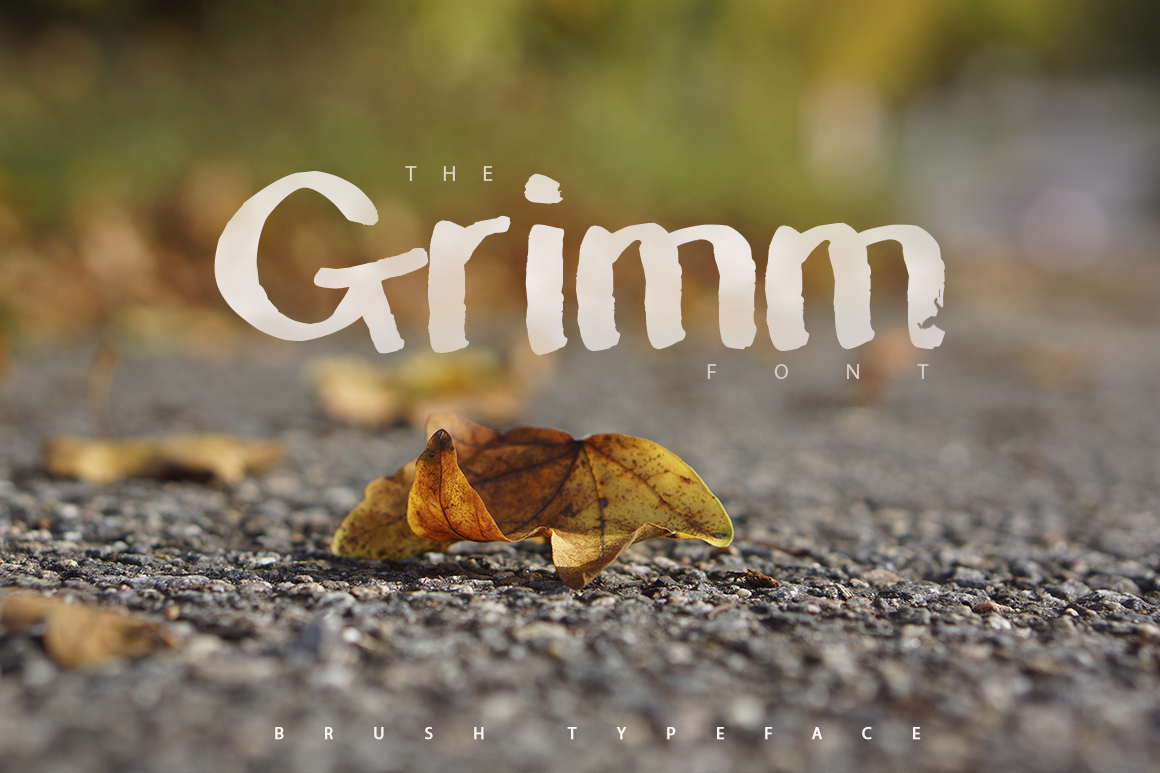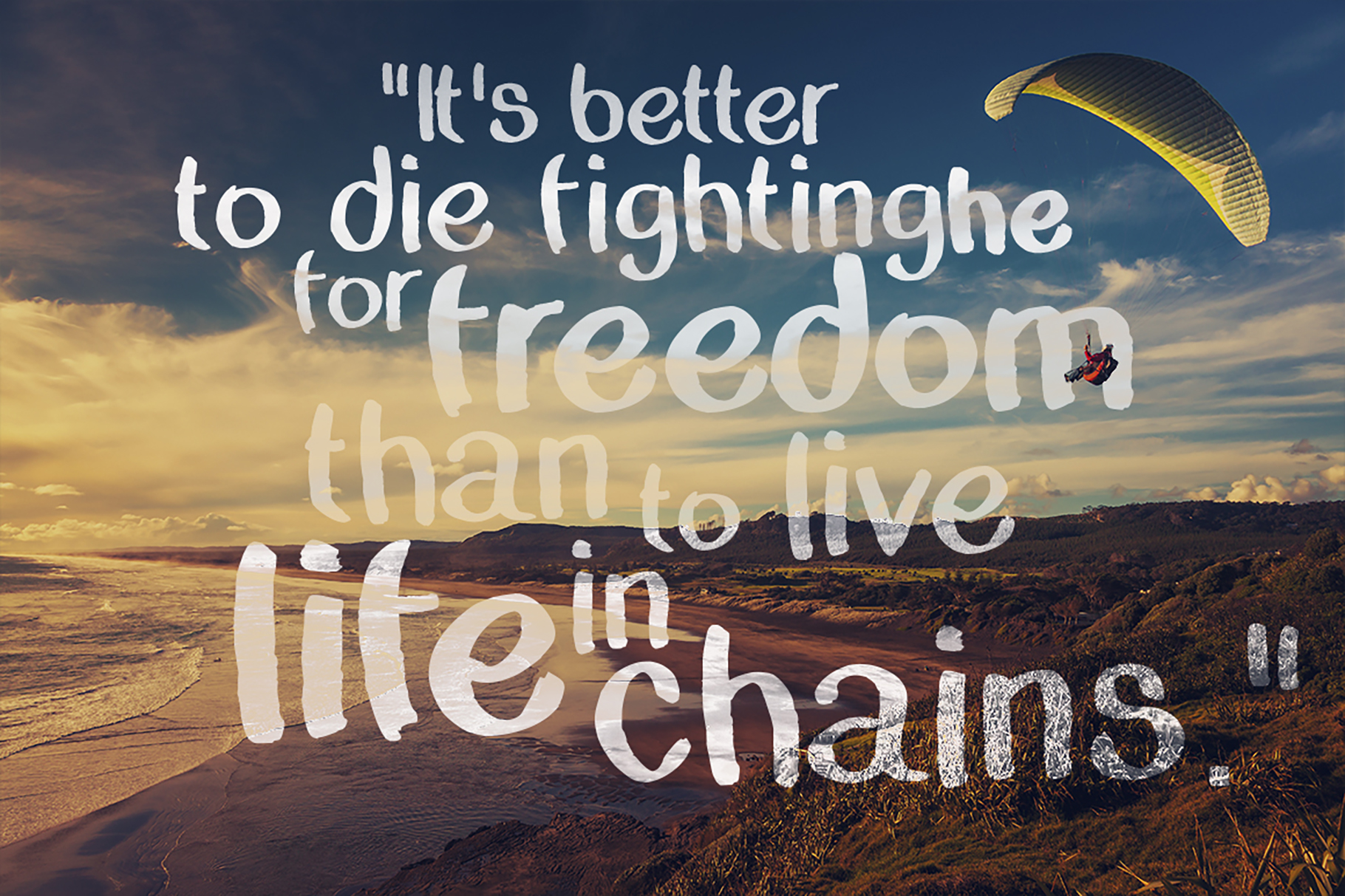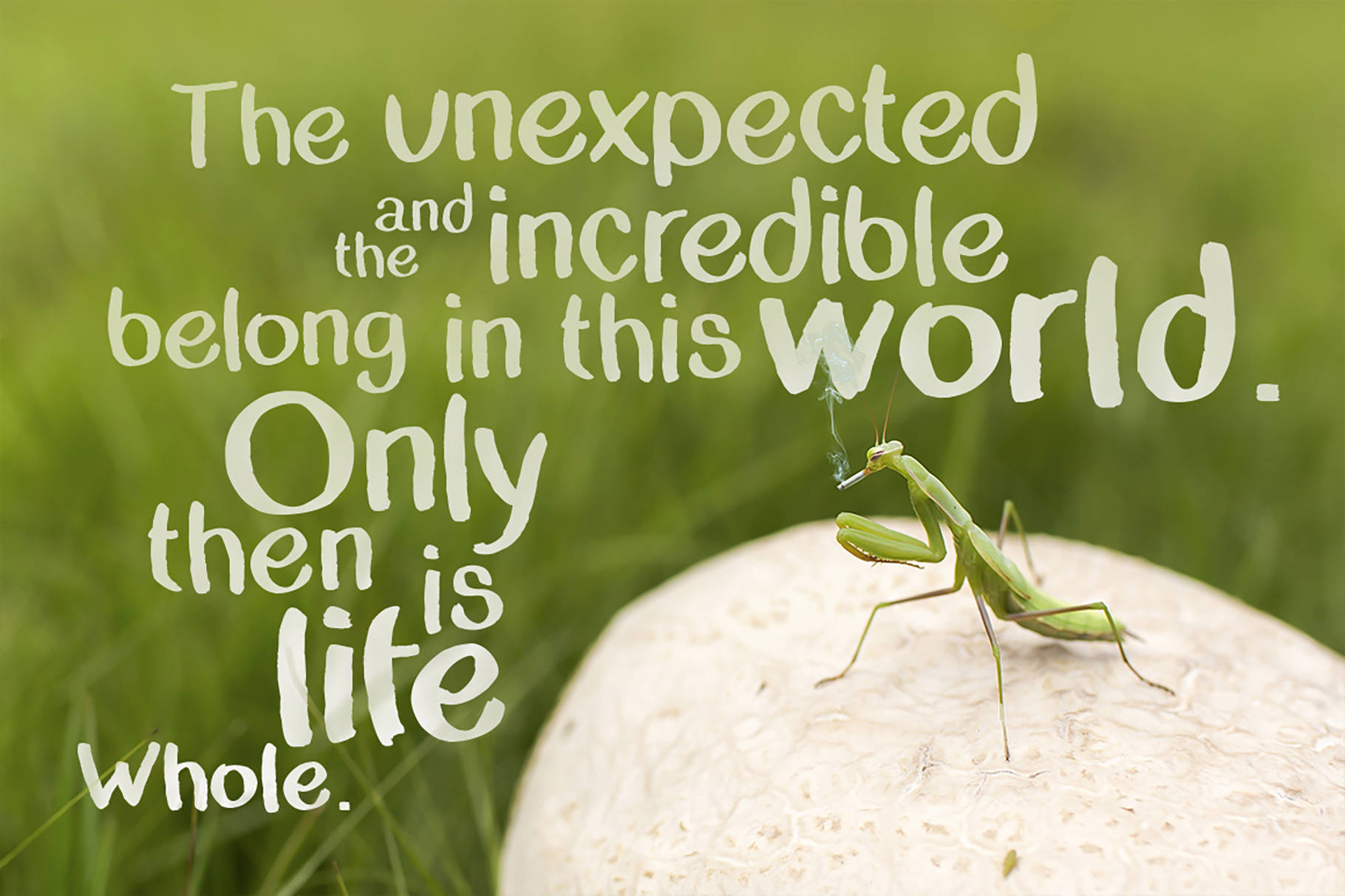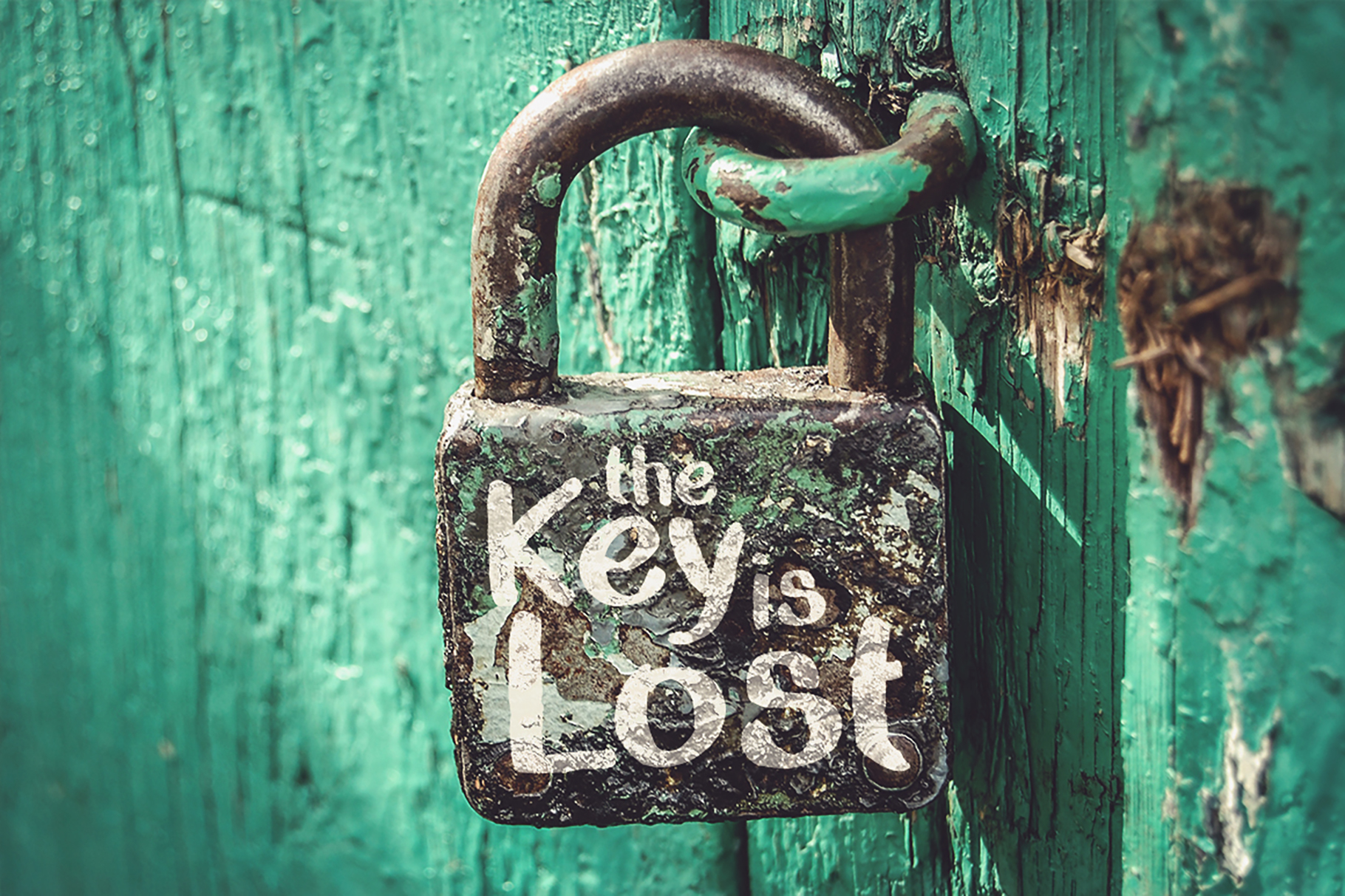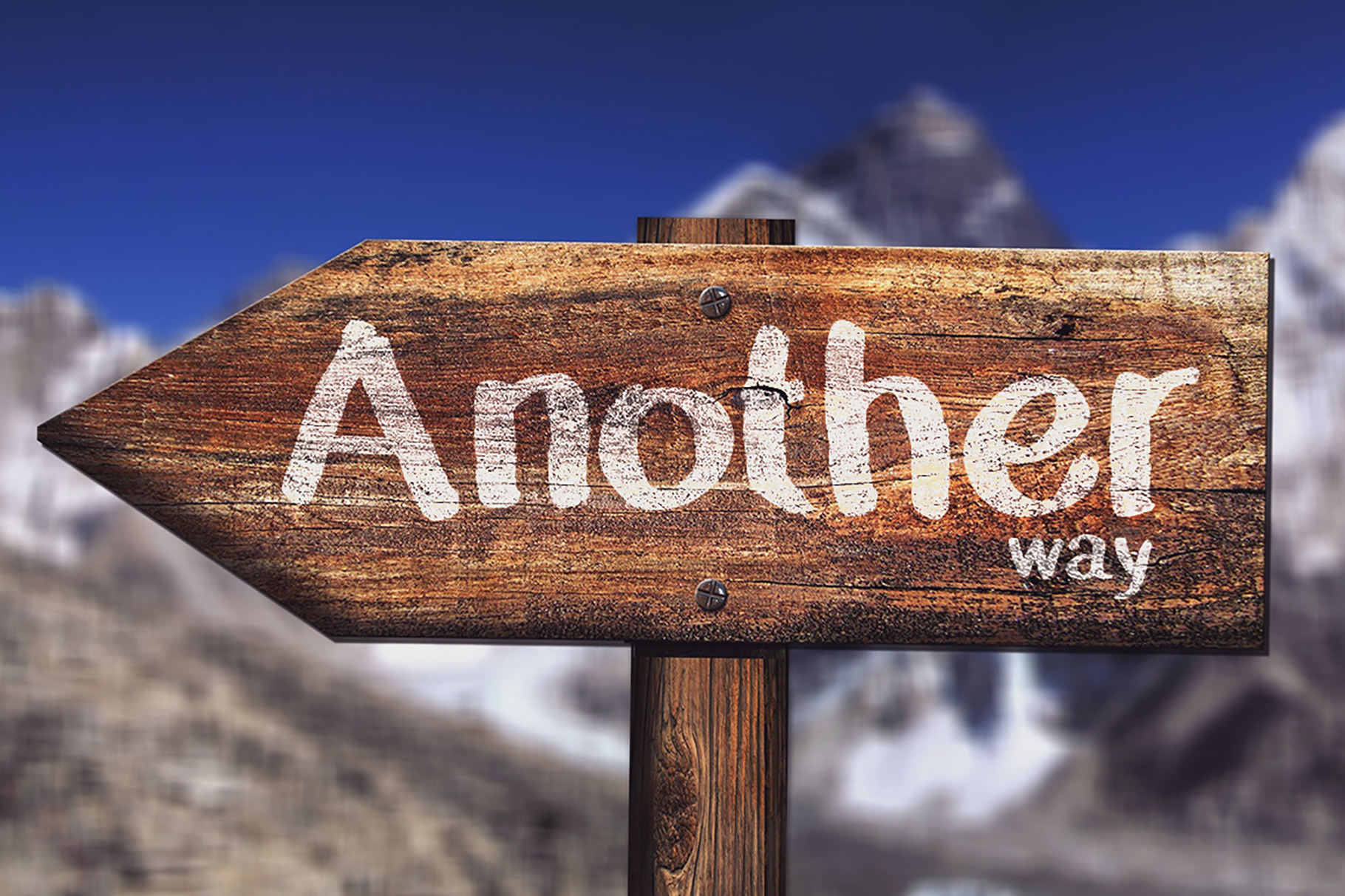
THE GRIMM is a hard handmade font family that relive your designs, include:
- All Punctuations
- All Extensions
- All Lowercase
- All Uppercase
- All Numbers